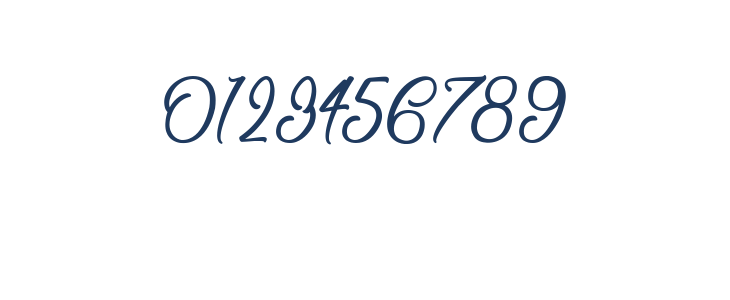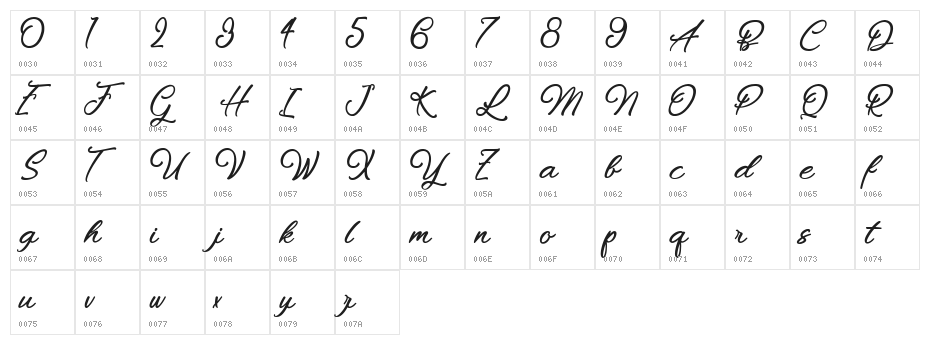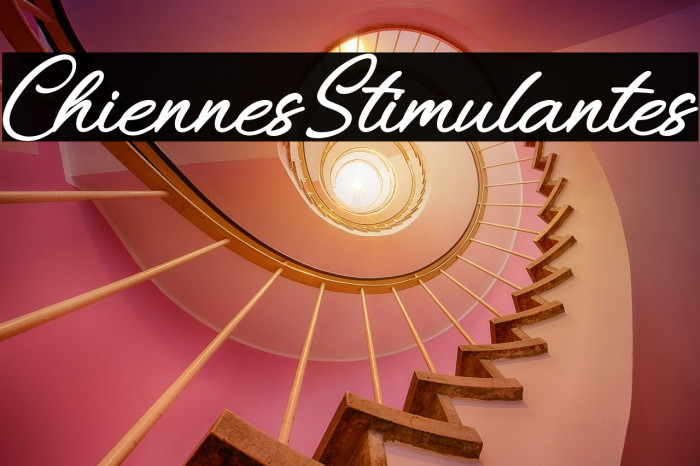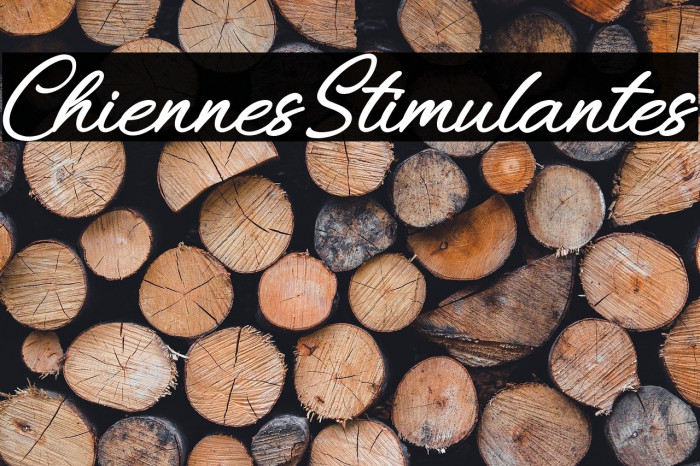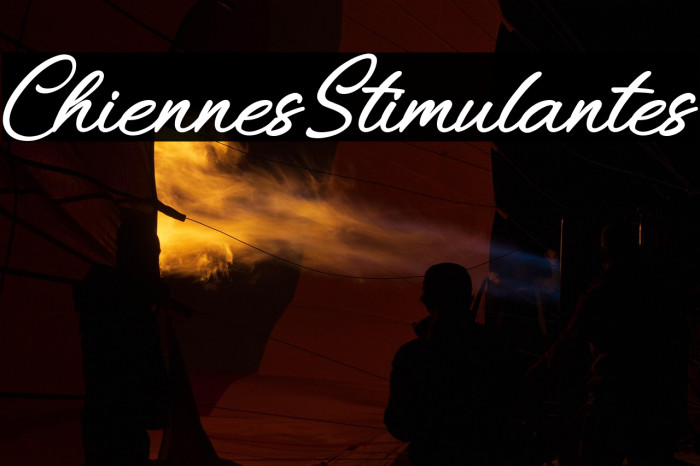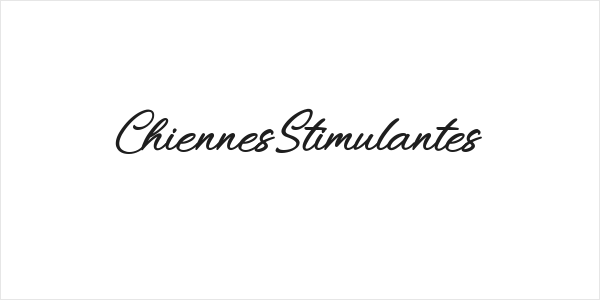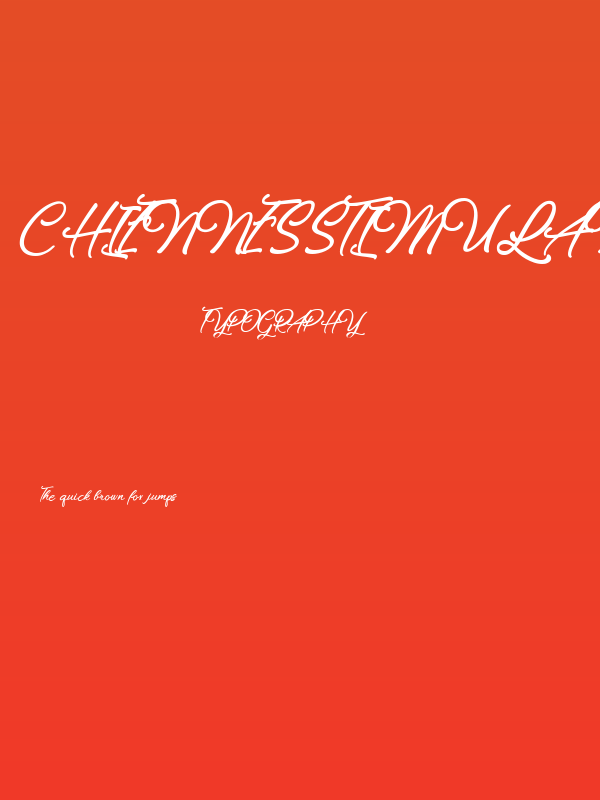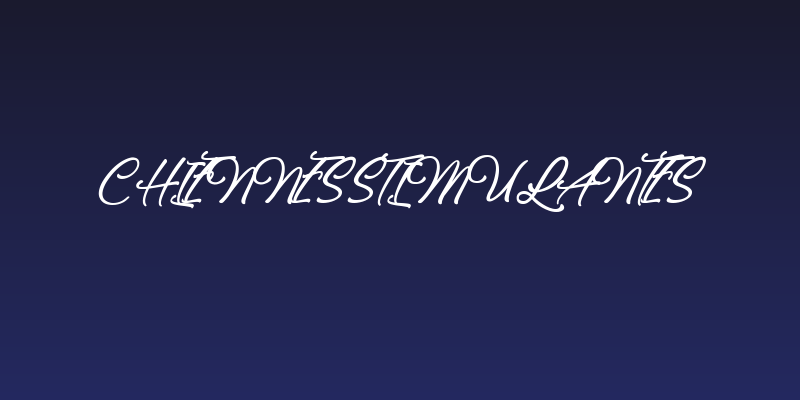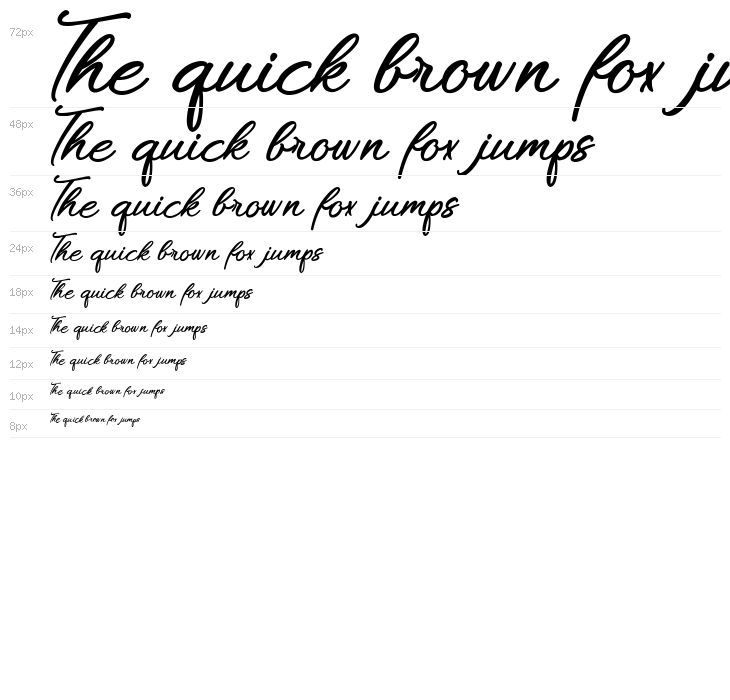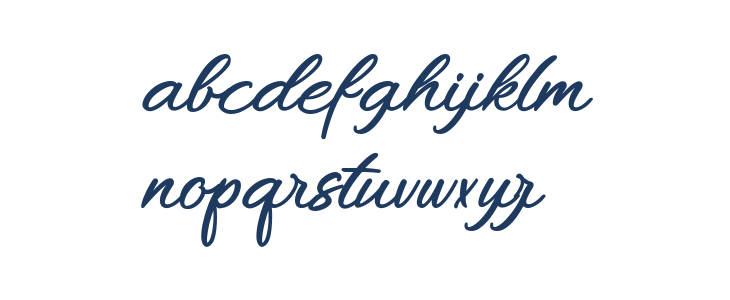
ChiennesStimulantes Font
ChiennesStimulantes Description
This font features an elegant and flowing script style, characterized by its smooth, cursive strokes and graceful curves. The letters are interconnected, creating a seamless and fluid appearance. The uppercase letters are ornate and slightly larger, adding a touch of sophistication, while the lowercase letters maintain a consistent and harmonious flow. The numerals are designed to match the script style, with rounded edges and a balanced form. Special characters are included, maintaining the same elegant style, making this font versatile for various design needs.